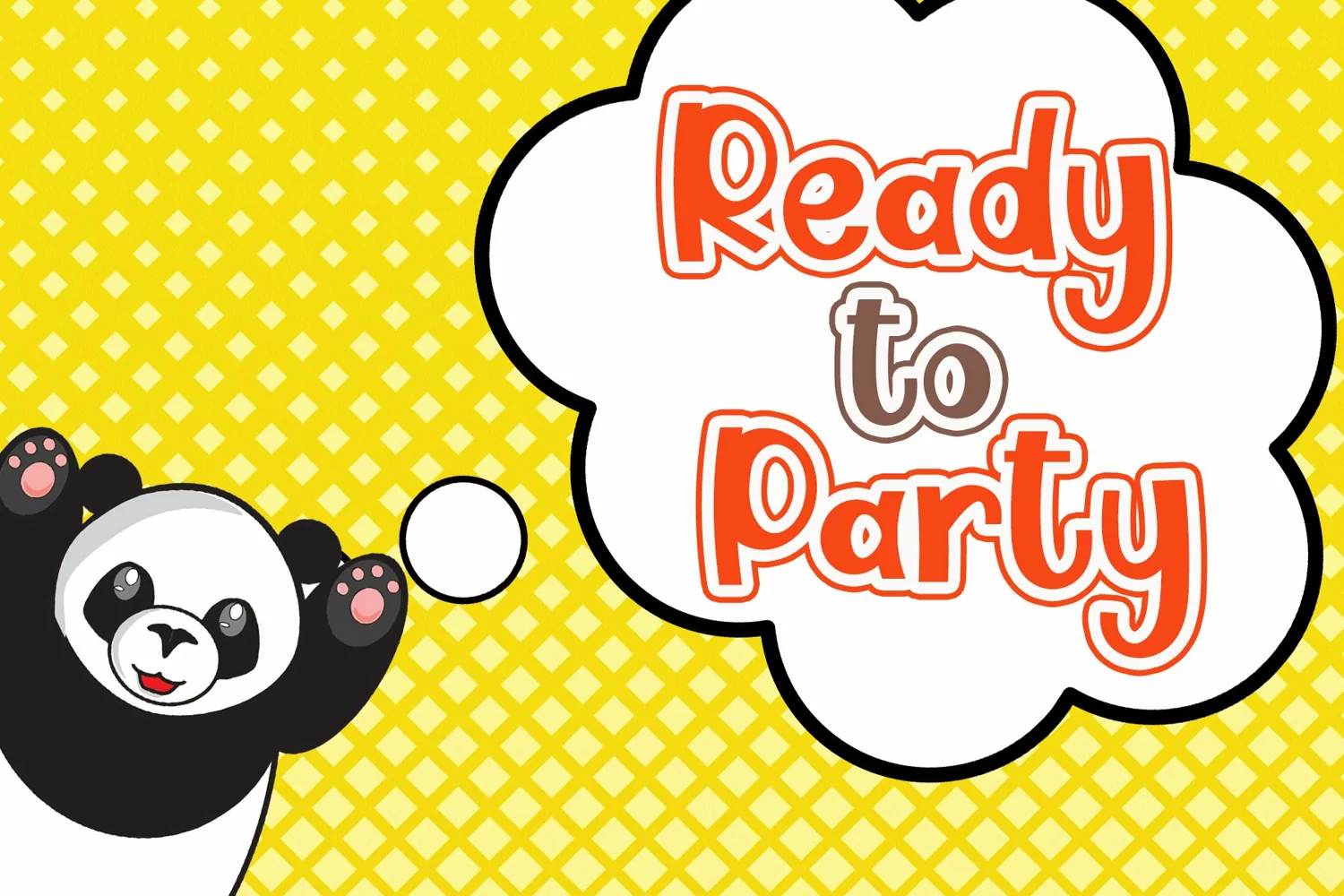
Ballkids Game is fresh and fun display font. This font radiates playful vibe of design.
Ballkids Game is so suitable for any children design, such as comic, cartoon, school theme, kindergarten, and many others.